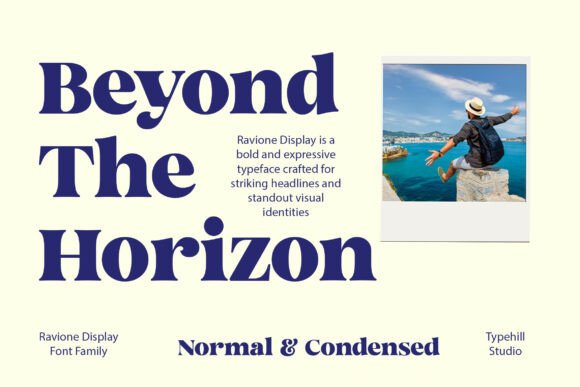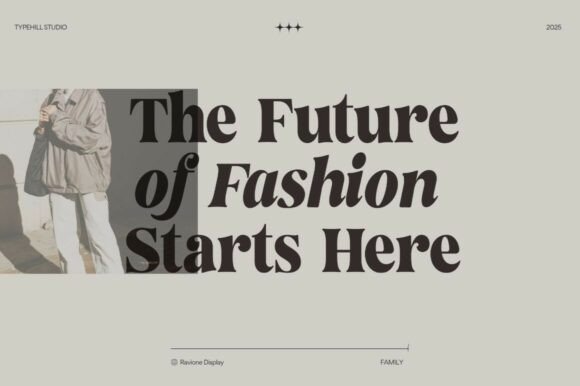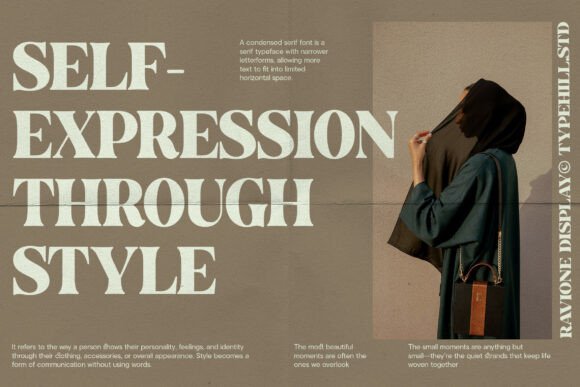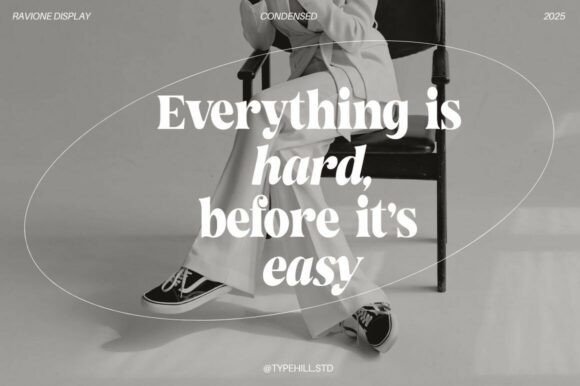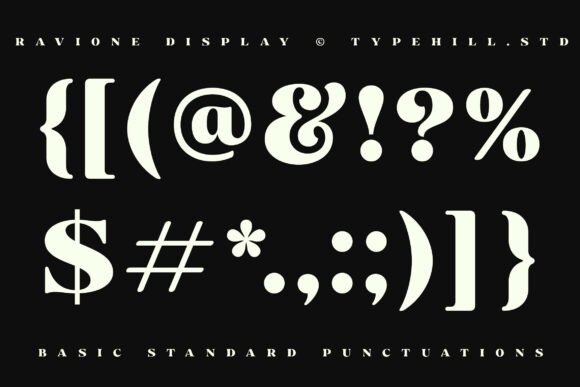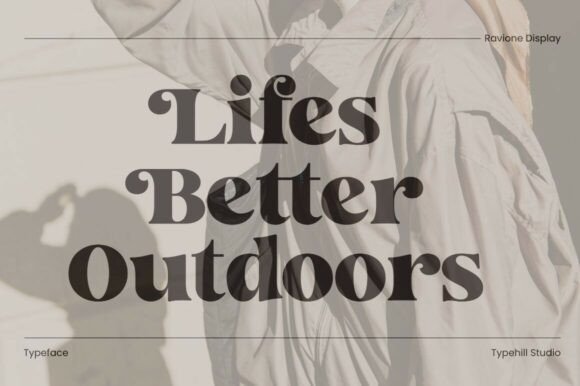
Unleashing the Elegance of Ravione Display Font
As a designer, have you ever been stuck trying to find the perfect font to elevate your creative project? The struggle is real, especially when you’re working on a high-end fashion branding or luxury packaging design. That’s where the stunning Ravione Display Font comes in – a game-changer that will transport your titles to a world of sophistication and glamour.
With its beautifully exaggerated curves and thick, confident strokes, this modern and elegant serif font is sure to capture attention and leave a lasting impression. Whether you’re working on a custom logo, editorial design, or packaging project, Ravione Display Font is a valuable design resource that will inject unparalleled style and charisma into your work.
Key Features of Ravione Display Font
- Designed to be versatile, Ravione Display Font can be used in a wide range of applications, from branding and marketing materials to digital products and websites.
- Unique characteristics include its bold and geometric shape, making it perfect for adding a touch of modernity to your design.
Honest Review: Ravione Display Font
As a designer, I’m always on the lookout for high-quality design resources that can elevate my creative projects. Recently, I stumbled upon the Ravione Display Font, and I’m excited to share my honest review with you.
- ✨ The font’s unique design is perfect for creating eye-catching headlines and titles.
- ⚠️ The font may not be suitable for body text due to its large size and decorative style.
- ⚠️ Some users may find the font’s bold lines and geometric shapes overwhelming.
Overall, I’m impressed with the Ravione Display Font’s high quality and versatility. It’s an excellent design resource for any creative project that requires a statement-making font. If you’re looking for a unique font to add some flair to your design, I highly recommend giving Ravione Display Font a try.
Tips for Getting the Most Out of Ravione Display Font
To get the most out of the Ravione Display Font, experiment with different font sizes, colors, and arrangements. You can also combine it with other fonts to create a unique design style.
The Ravione Display Font is perfect for various creative projects, including logos, graphics, presentations, and documents. Its high-quality design and transparent background make it an ideal choice for designers and non-designers alike.